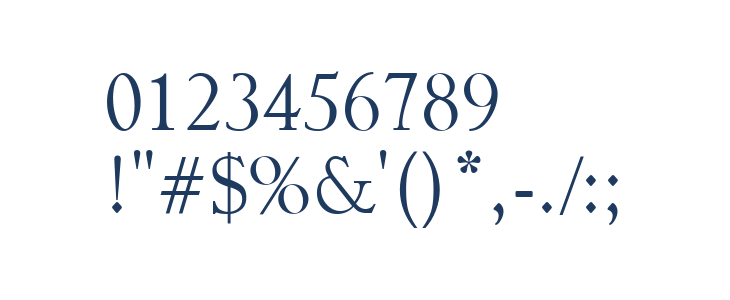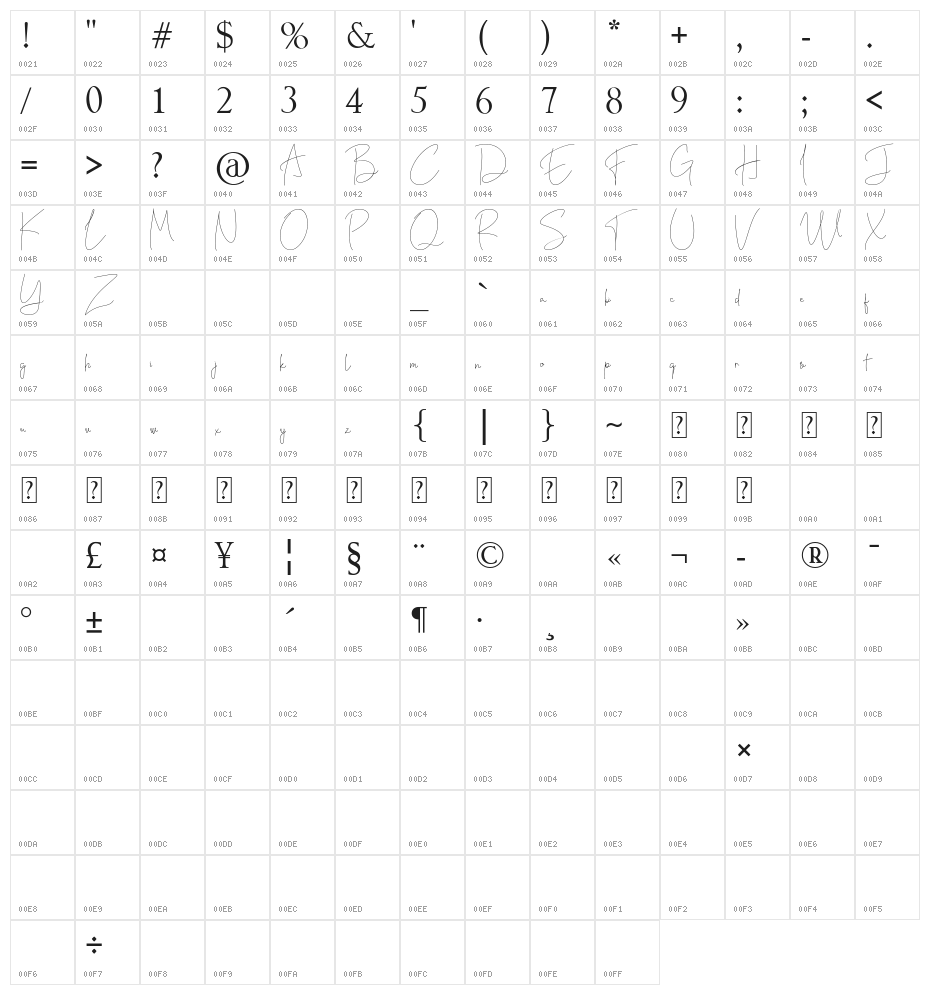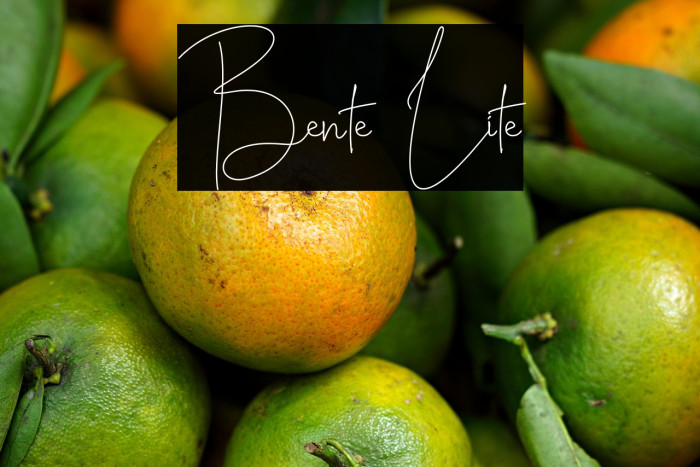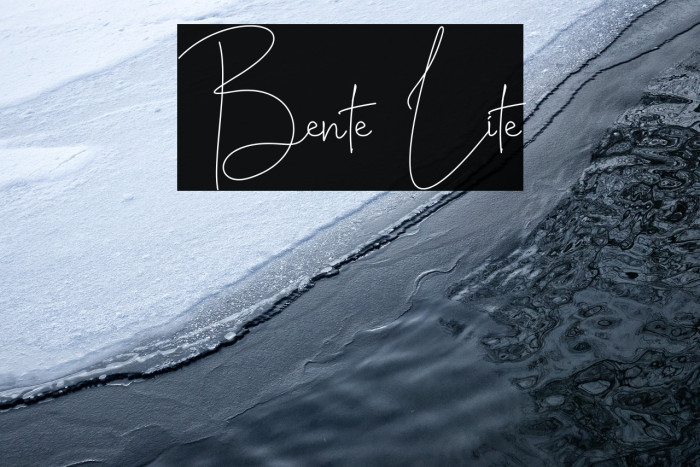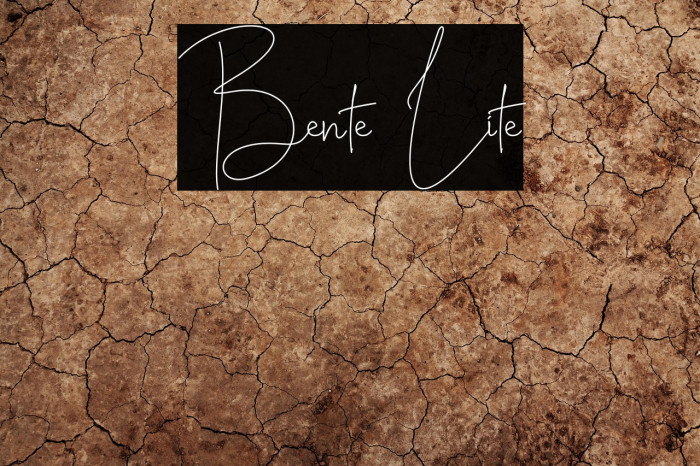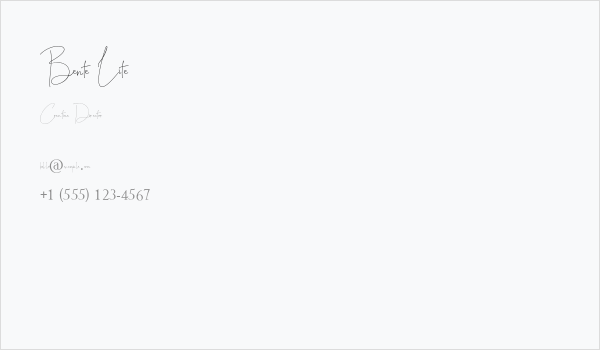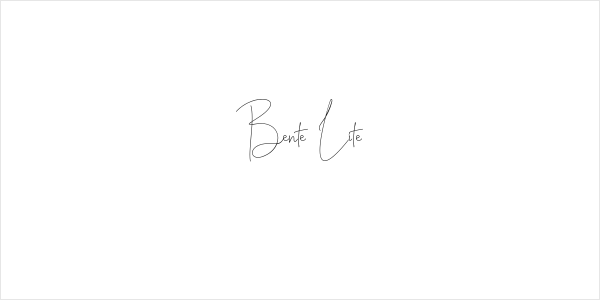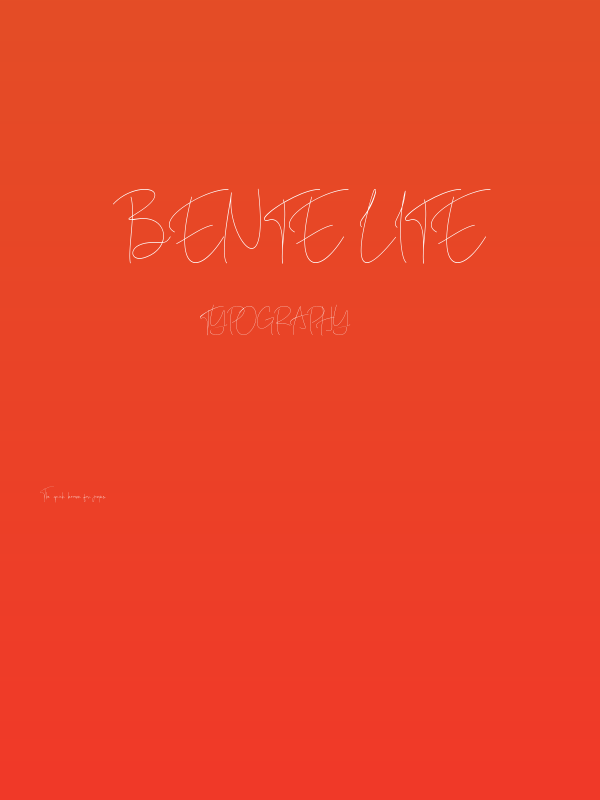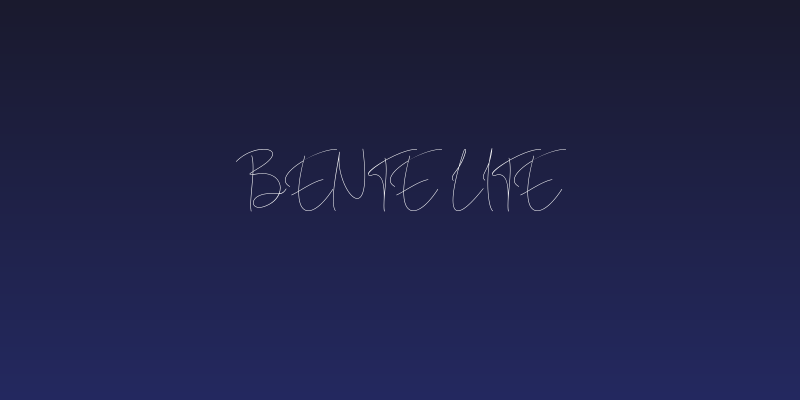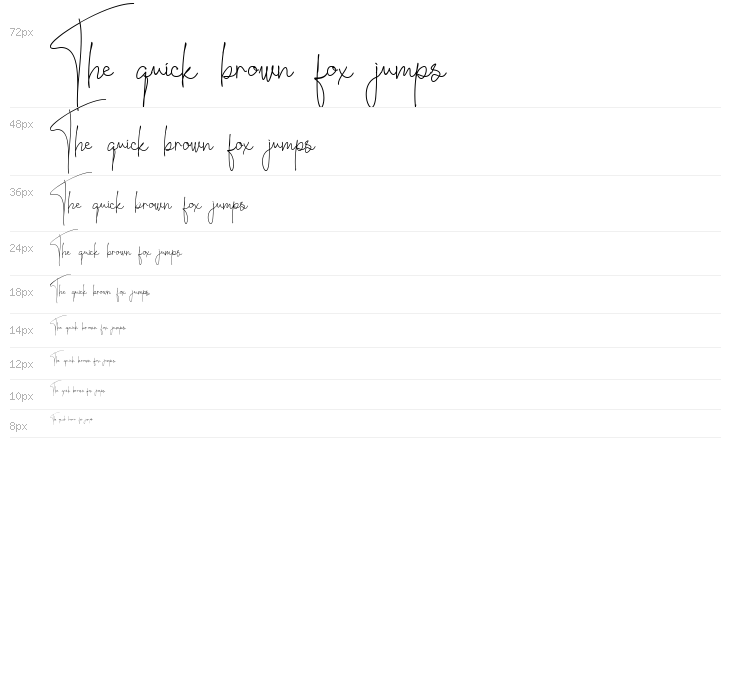
Bente Lite Font
Bente Lite Description
This font features a delicate and elegant script style with a handwritten appearance. The uppercase letters are tall and slender, with a graceful flow that gives a sense of sophistication. The lowercase letters maintain a consistent style, offering a seamless transition between characters. The numerals are bold and distinct, providing a strong contrast to the script letters. Special characters are included, maintaining the overall aesthetic of the font. This combination of script and bold numerals makes it versatile for various design needs.
| Proposed Projects | Ideal for wedding invitations, greeting cards, elegant branding, and sophisticated logos. |